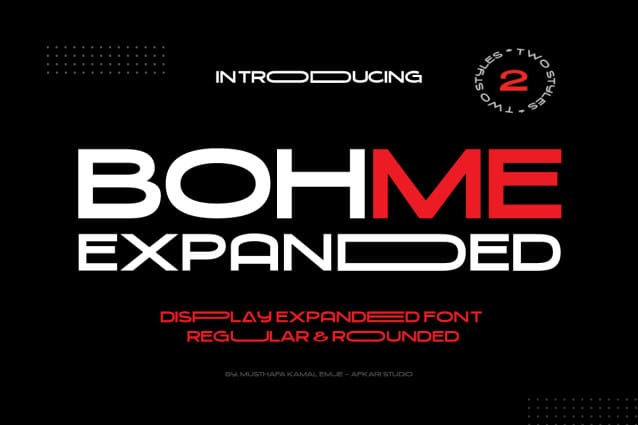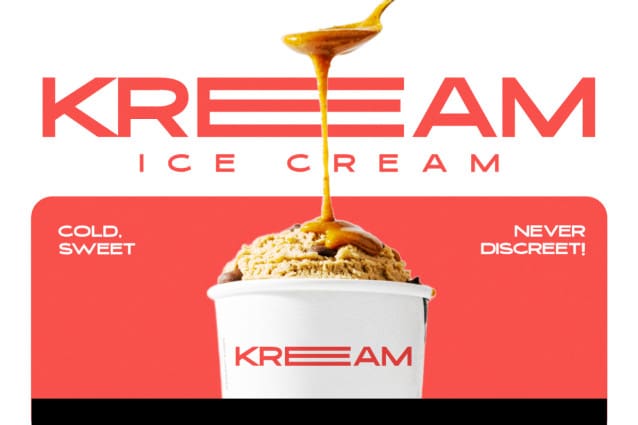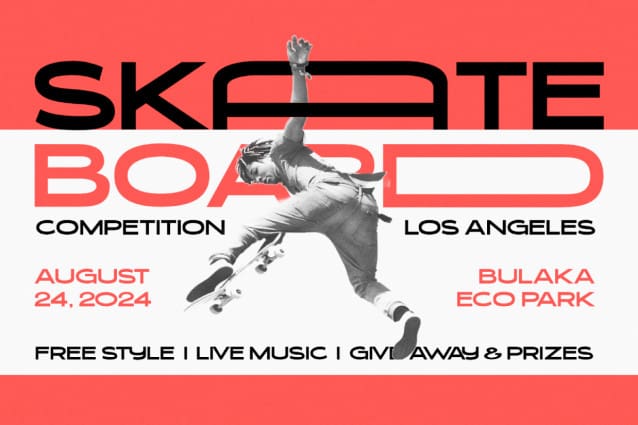
Bohme Expanded Typeface
Bohme Expanded Typeface, a dynamic and modern Display Sans Serif Font that takes typography to new heights. This font, characterized by its bold and expansive design, is crafted for those seeking a typeface that seamlessly combines contemporary aesthetics with a touch of sophistication.
Bohme Expanded is not just a font; it’s a design statement. Its expansive letterforms exude confidence, making it the perfect choice for projects that demand attention and impact. Whether you’re designing headings, logos, posters, or any creative endeavor that requires a bold and stylish touch, Bohme Expanded is your go-to typeface.
Bohme Expanded Display Sans Serif Font